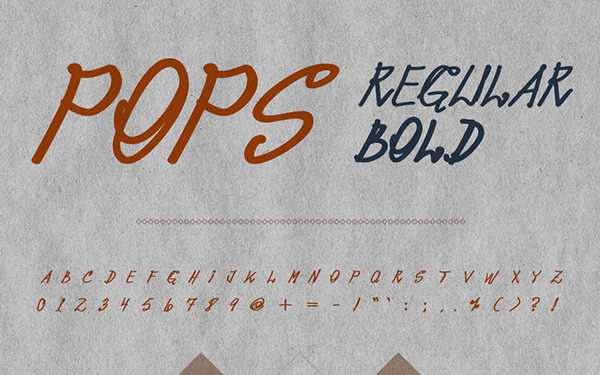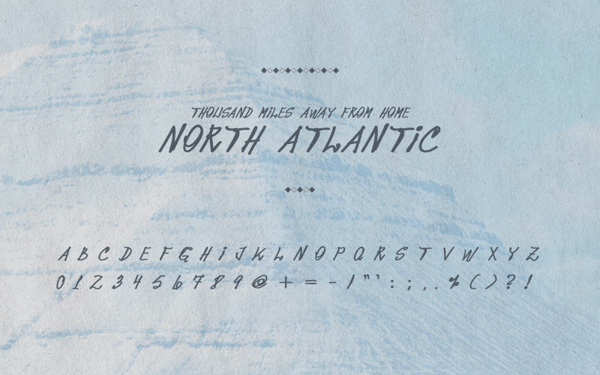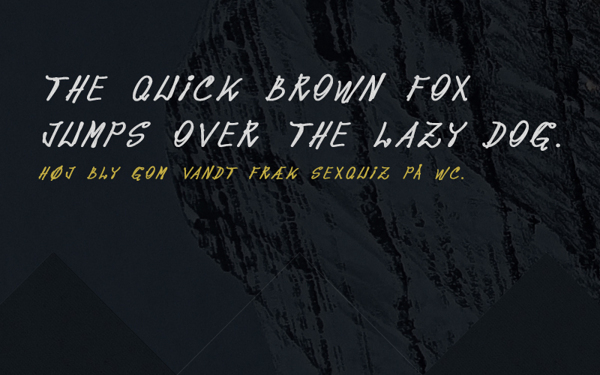
pops Font Family
Every handwritten letter is unique. Some handwriting look beautiful, some handwriting has a certain flow and some are more personal than others. That’s why I tasked myself to create a font based on one of my fathers handwriting styles – a very personal and specific one – normally used for short messages and headlines.